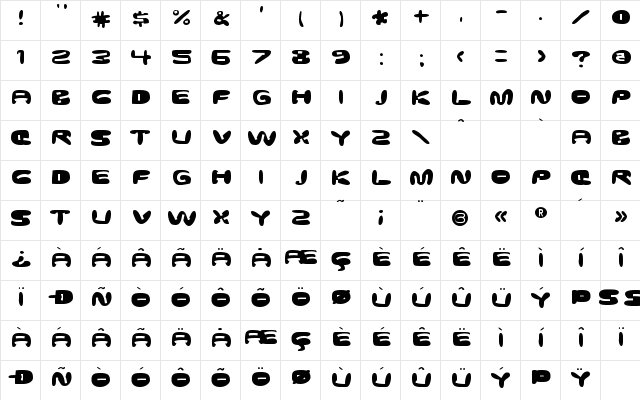
Ghostmeat Front
Style: Front
Ghostmeat Family
Ghostmeat Front
Design Context for Ghostmeat
Ghostmeat is a composed and adaptable typeface that performs quietly and consistently across a wide range of design contexts.